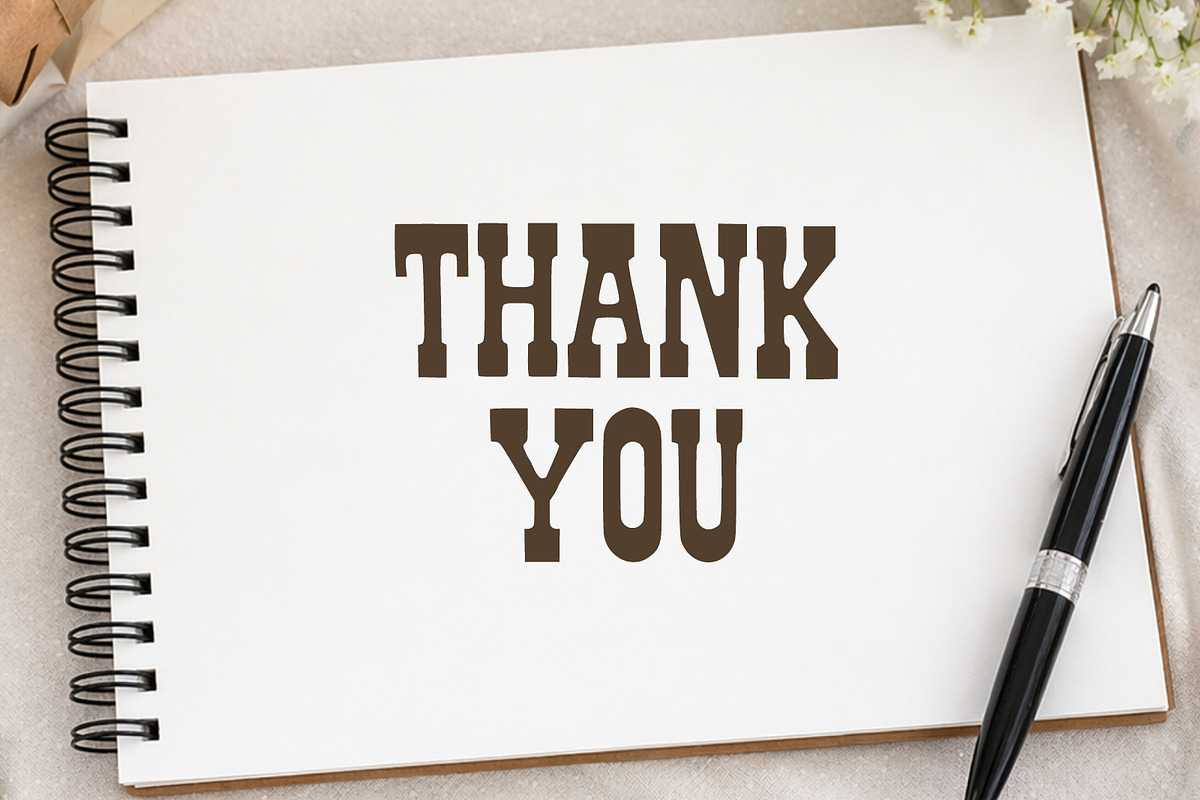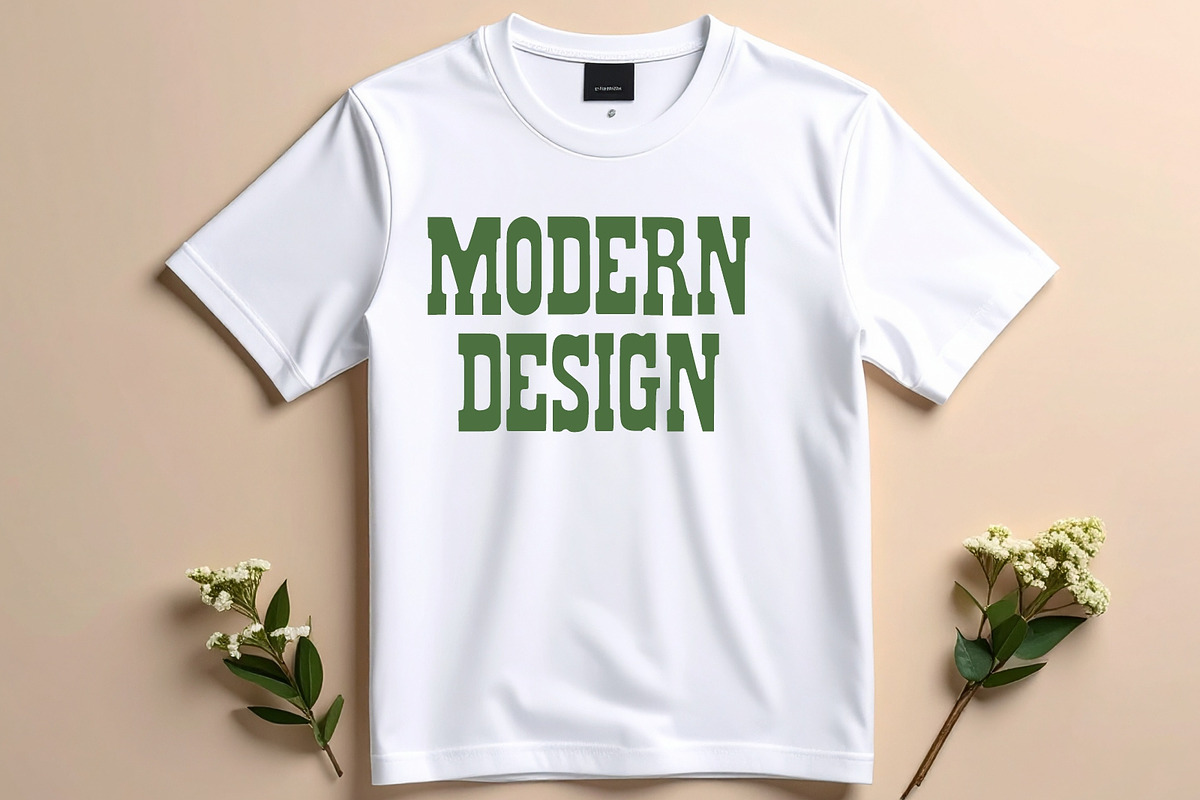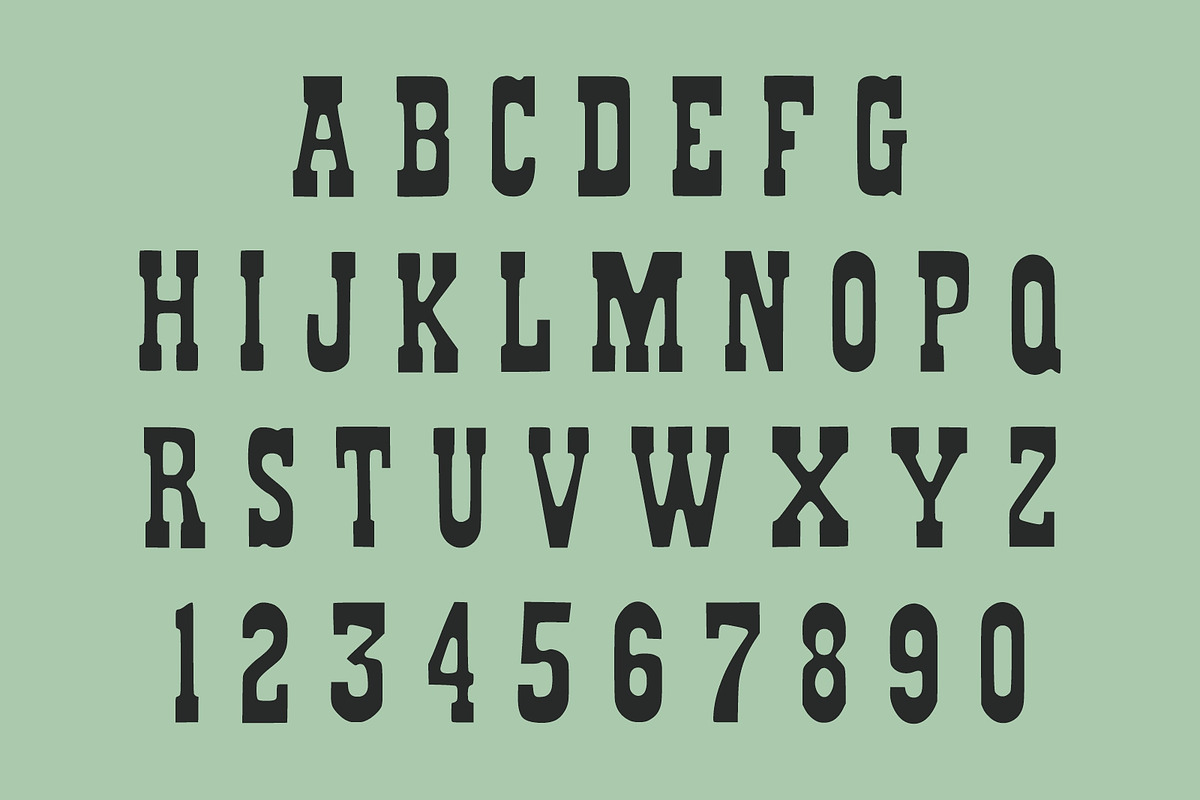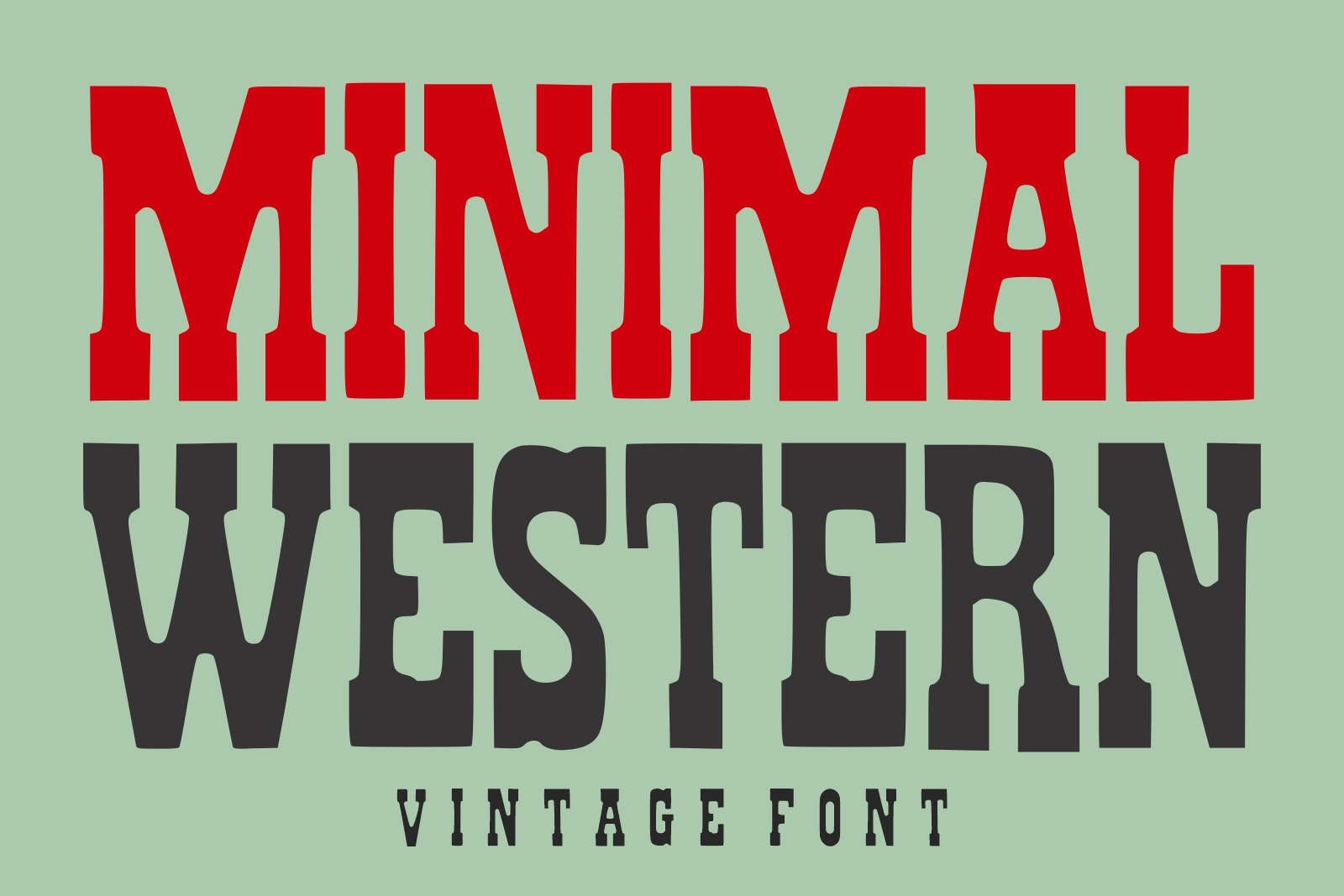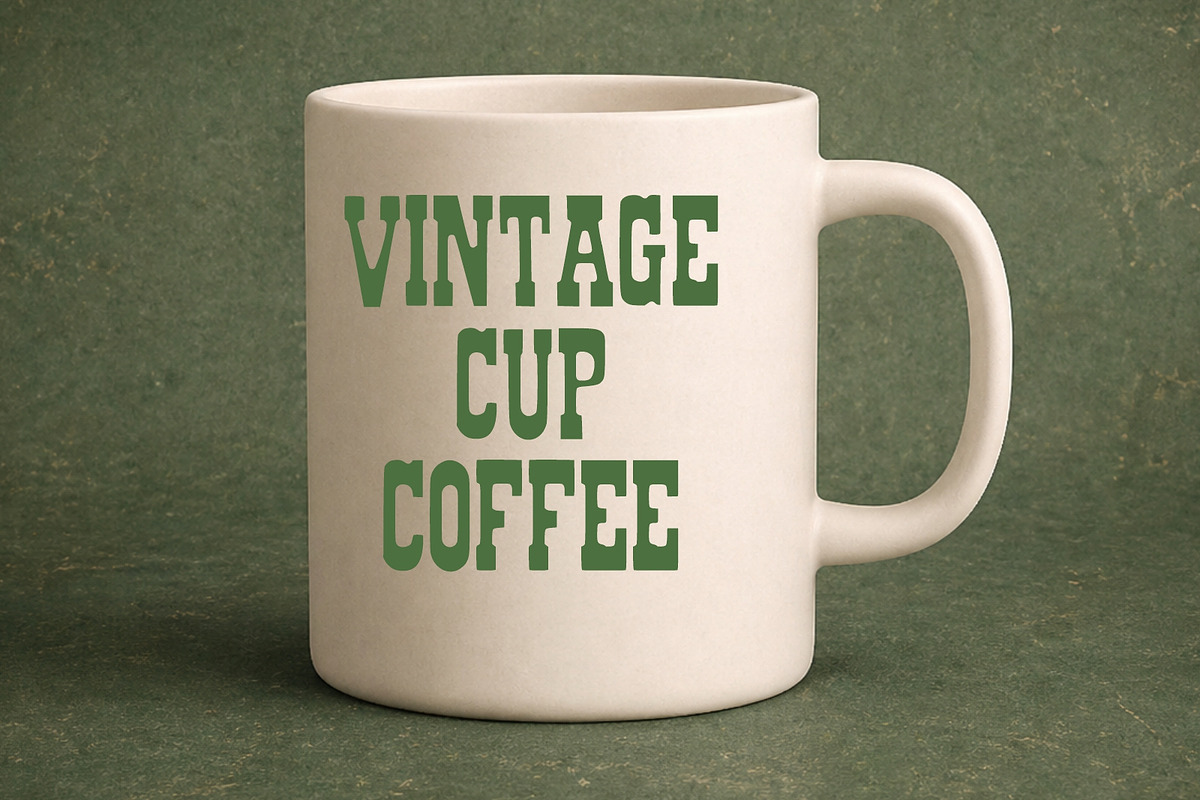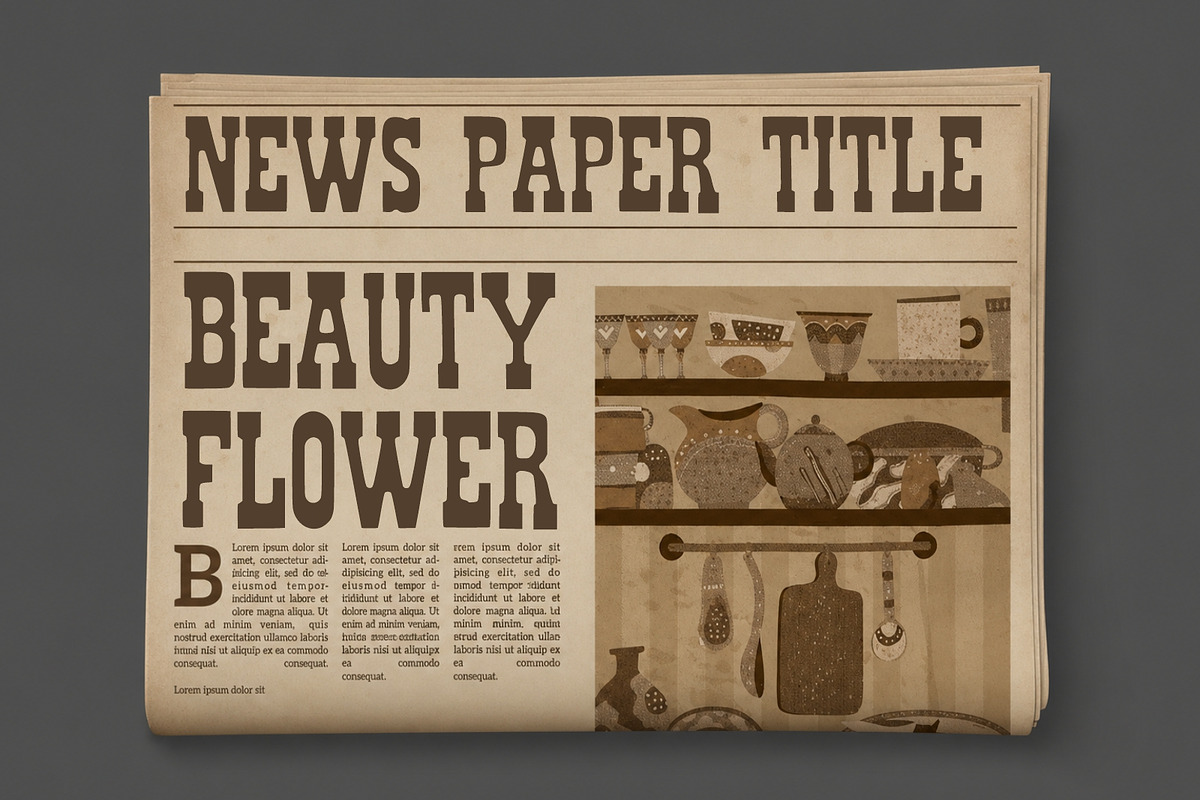
Minimal Western font
Minimal Western is a bold vintage display font that blends classic western style with a clean, minimal aesthetic. Its strong slab-like letterforms and subtle retro character make it perfect for logos, posters, branding, t-shirt designs, packaging, and signage. This font delivers a timeless western feel while staying modern and versatile, making it ideal for both rustic and contemporary design projects.